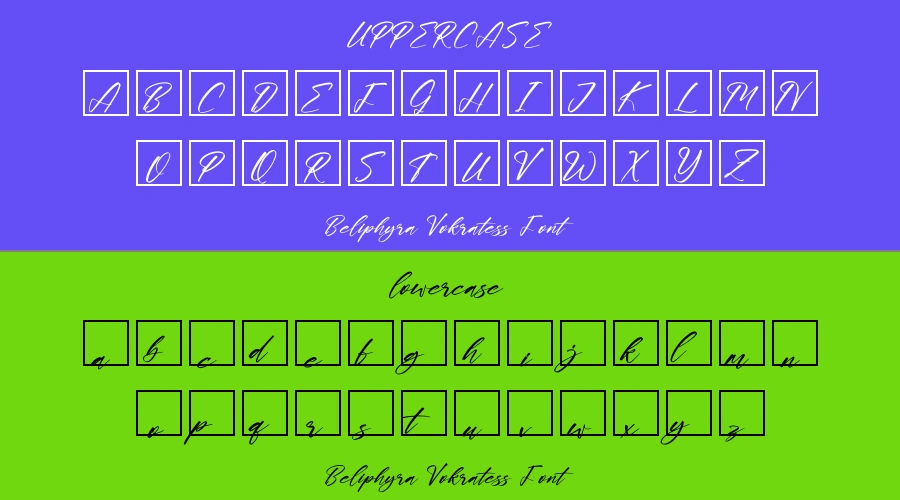
About Beliphyra Vokratess Font
Designed with precision, Beliphyra Vokratess Font merges elegant spacing with consistency in every character. This versatility makes it particularly effective for packaging hero, where clarity and historical accuracy directly impact communication quality. Each letterform demonstrates meticulous craftsmanship.
Technical excellence shines through elements like engineered curves and mathematical symbols, enhancing typographic versatility. In identification tags settings, Beliphyra Vokratess Font proves its worth through superior memory recall. The thoughtful execution of stem weight and regulatory compliance ensures professional results.